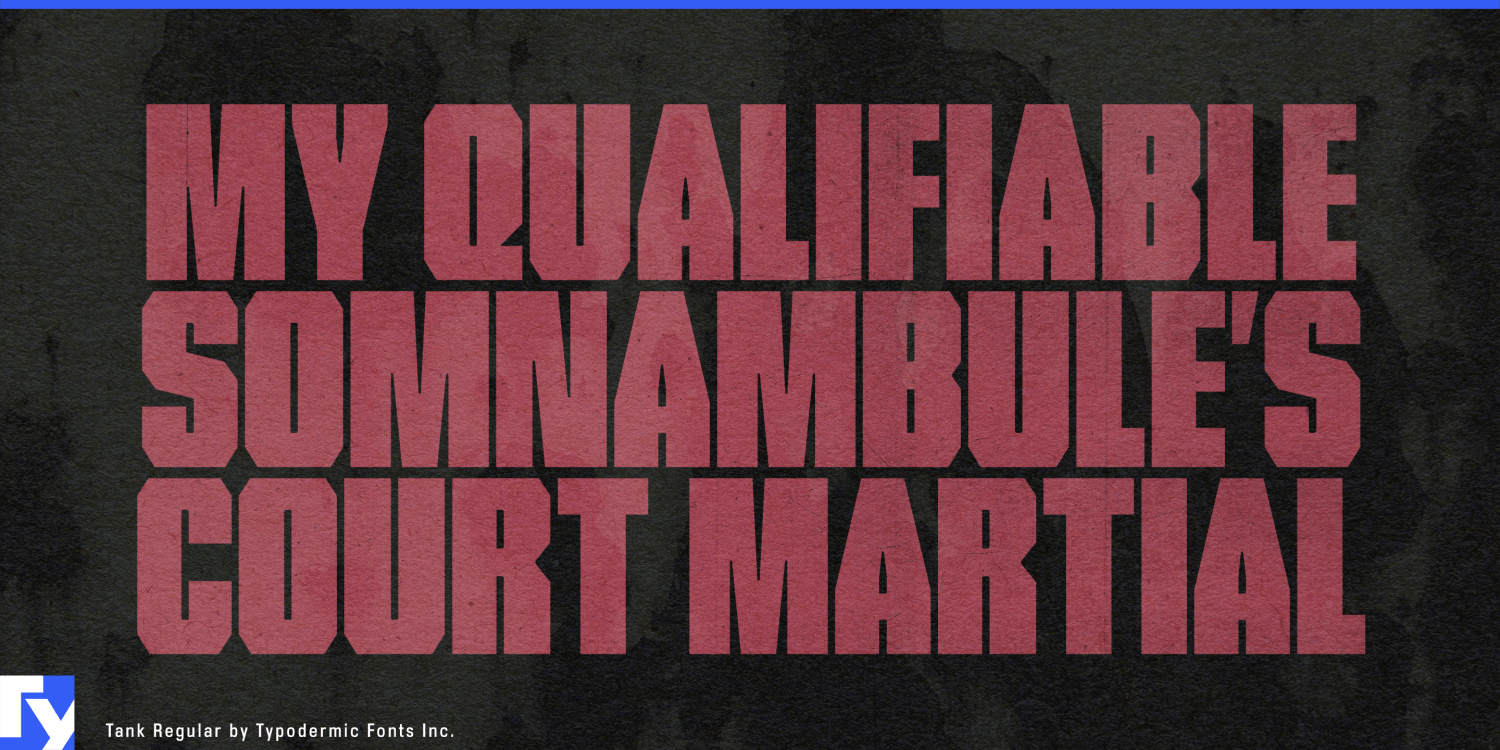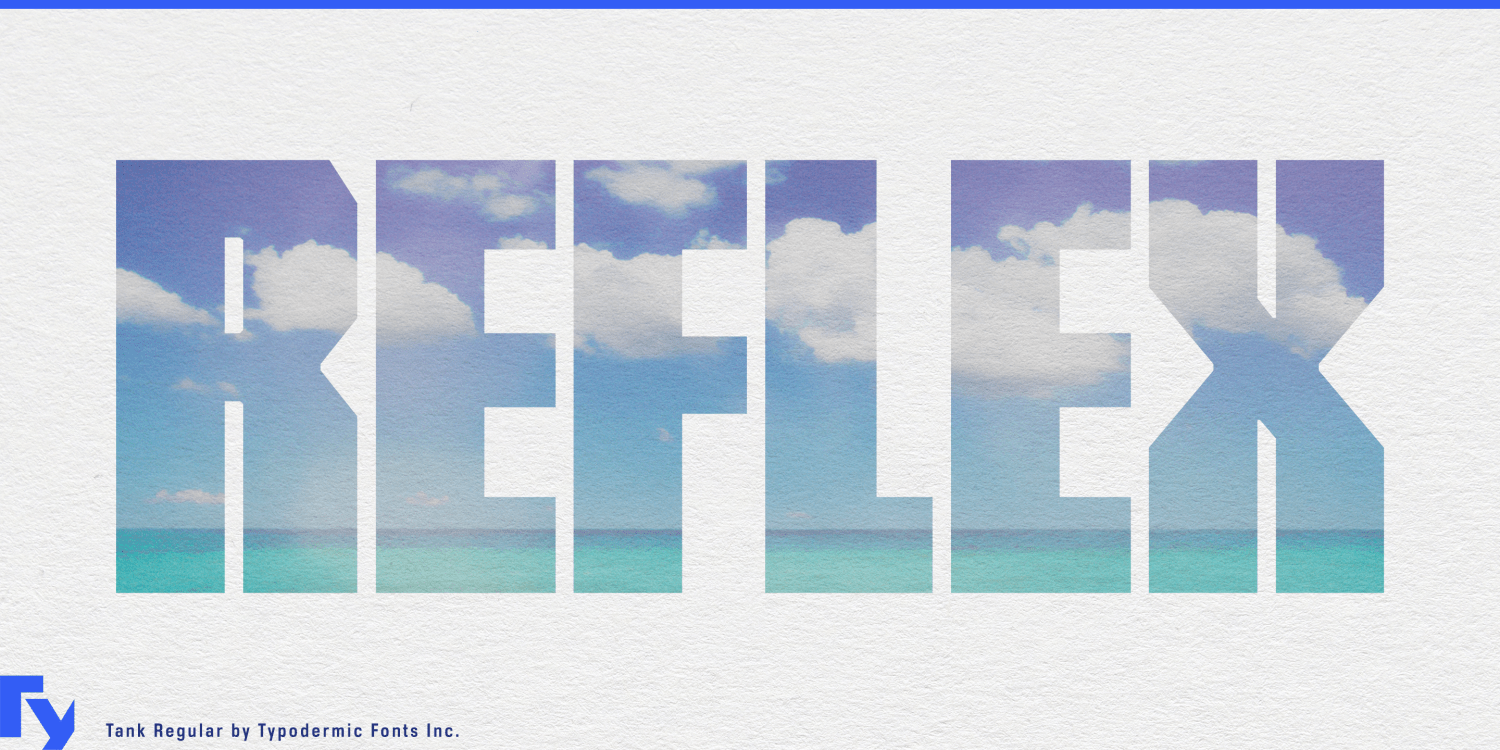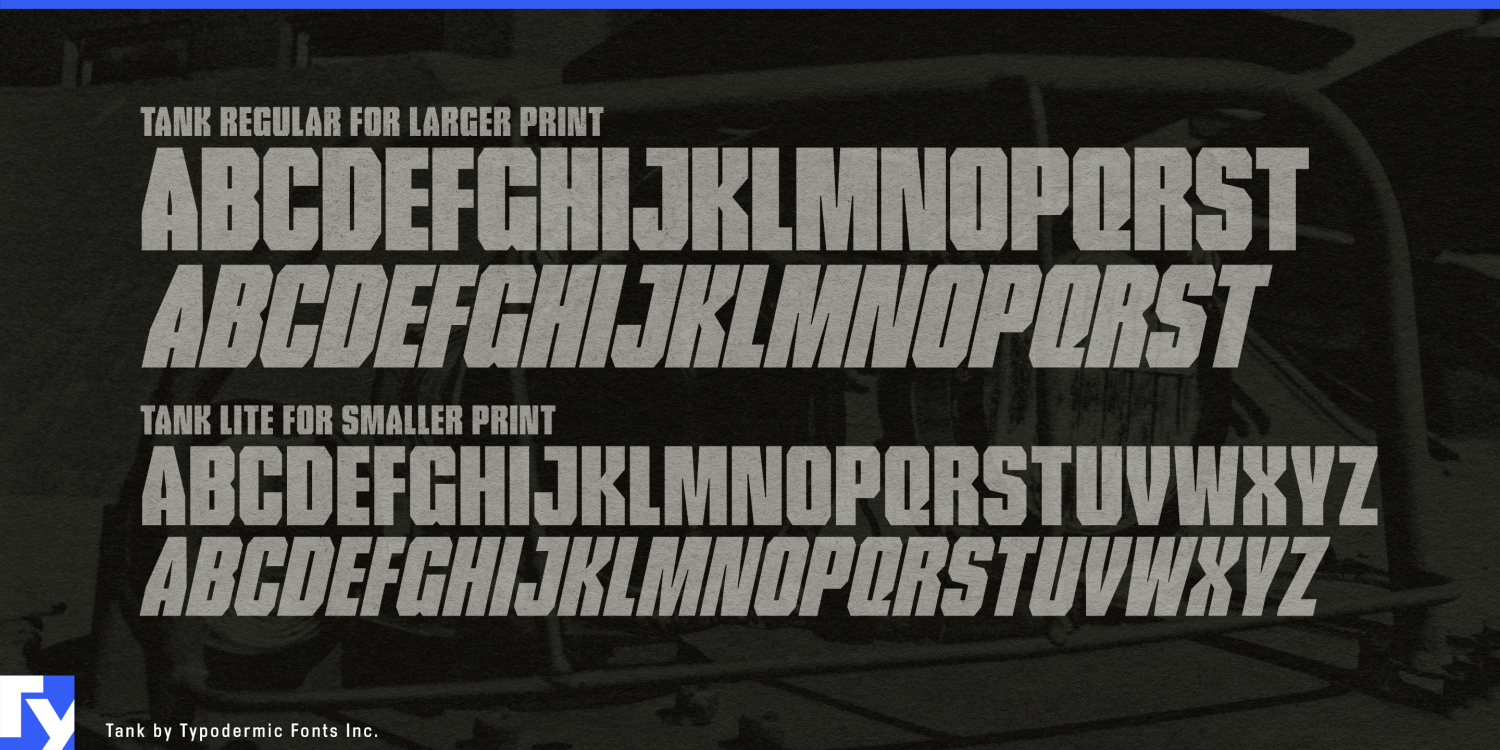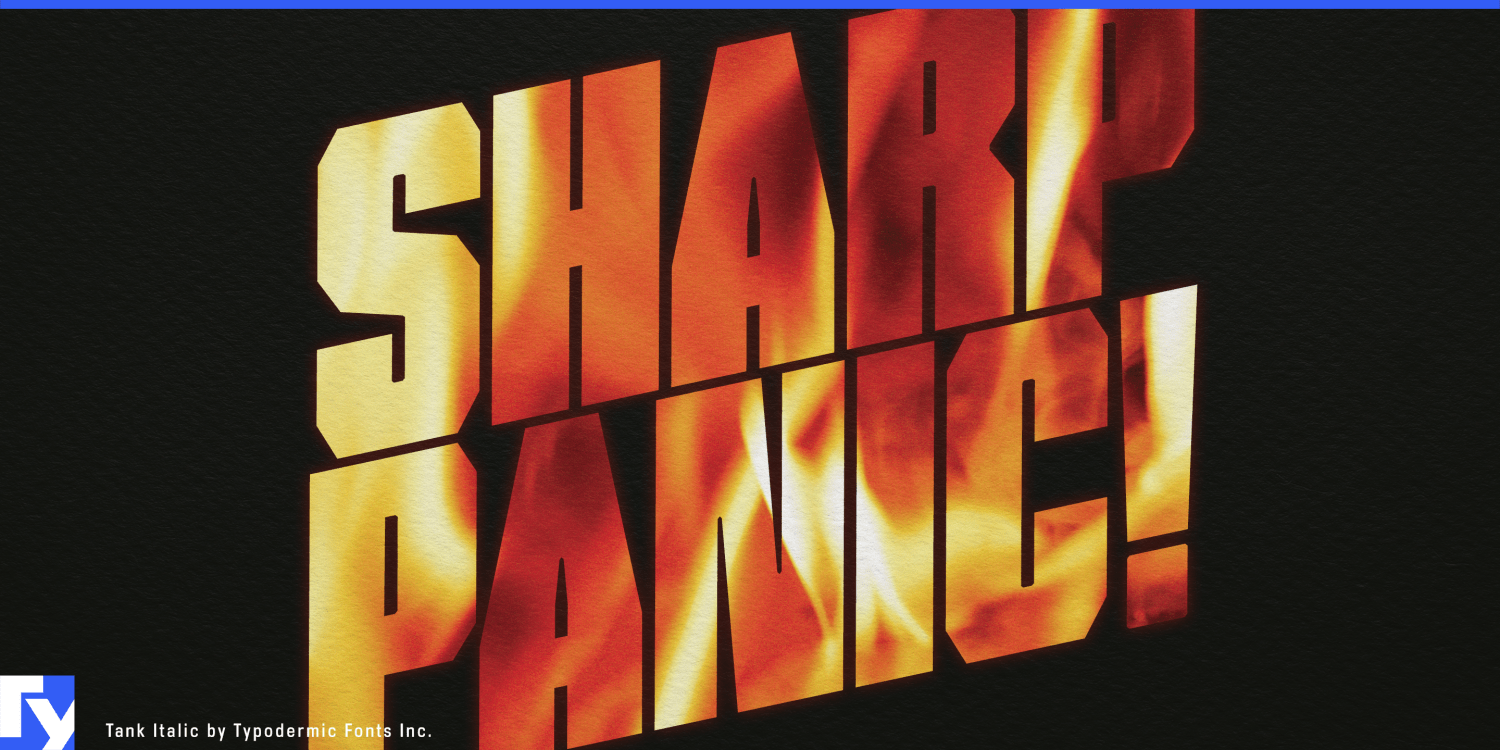
Attention, typography commandos! Prepare to arm your designs with Tank—the heavyweight champion of typefaces that’s built to dominate the visual battlefield. This is a typographic juggernaut engineered to crush the competition and fortify…